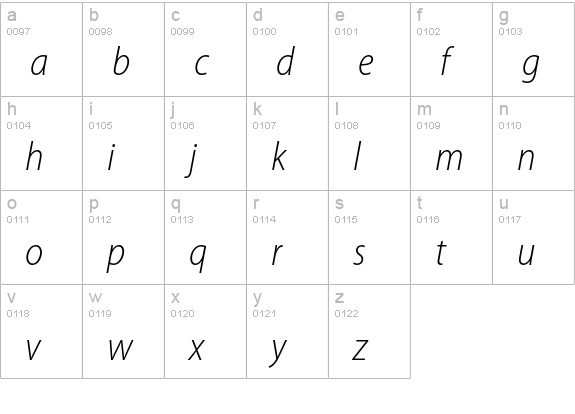
Myriad Pro Light SemiCondensed Italic Font Details
Myriad Pro Light SemiCondensed Italic is a refined, elegant, italic variant in the Myriad typeface family \xE2\x80\x94 well suited to elegant body text, refined sub-headings, and luxury branding.
Myriad Pro Light SemiCondensed Italic font is a sleek and sophisticated typeface that exudes elegance and modernity. With its slender and slightly slanted design, this font adds a touch of style and flair to any project. The semi-condensed spacing allows for a more compact and streamlined look, making it ideal for use in both print and digital designs. This font is perfect for conveying a sense of sophistication and professionalism, making it suitable for a wide range of applications including branding, advertising, and editorial design. Its light weight gives it a delicate and airy quality, while the italicized slant adds a dynamic and stylish touch. Best of all, Myriad Pro Light SemiCondensed Italic font is available for free download at FontsMarket.com, allowing you to easily access and use this beautiful typeface in your projects without any cost. So why wait? Elevate your designs with the timeless beauty of Myriad Pro Light SemiCondensed Italic font today!